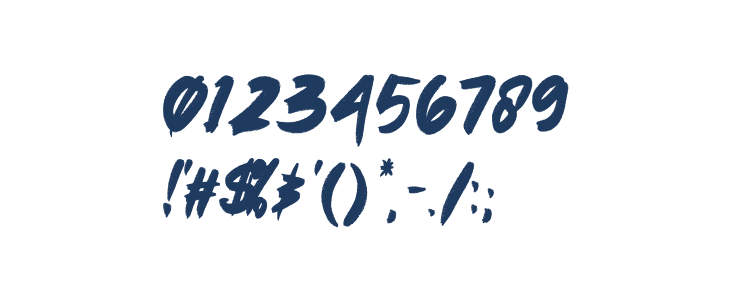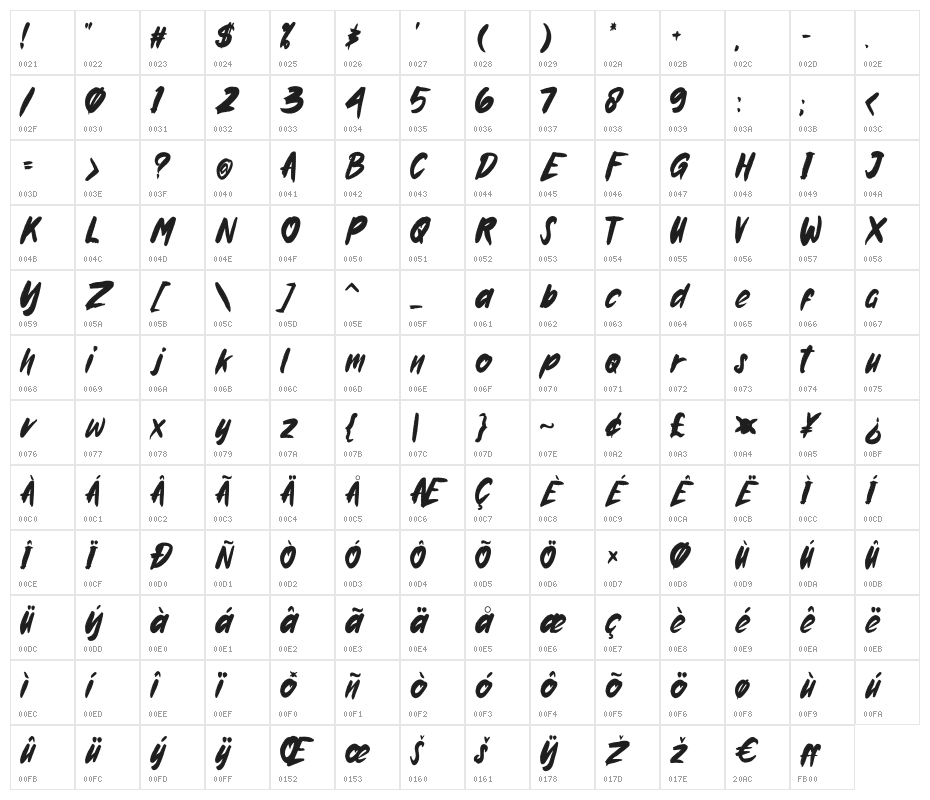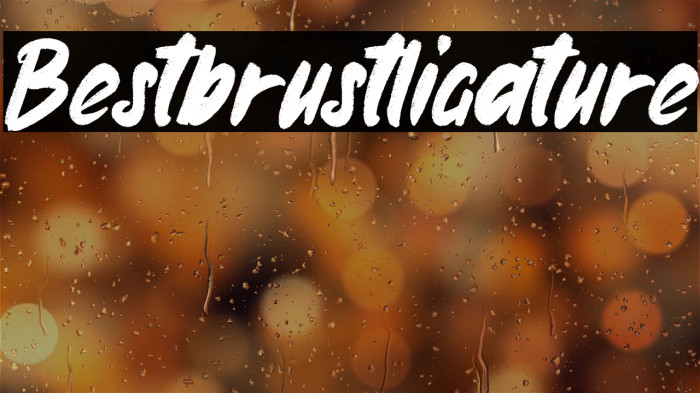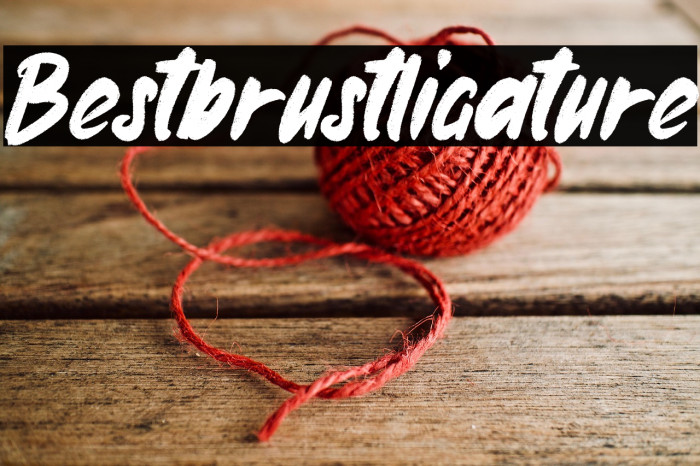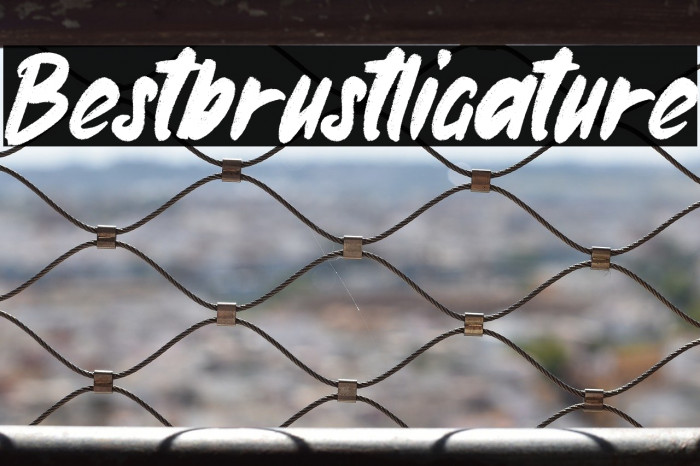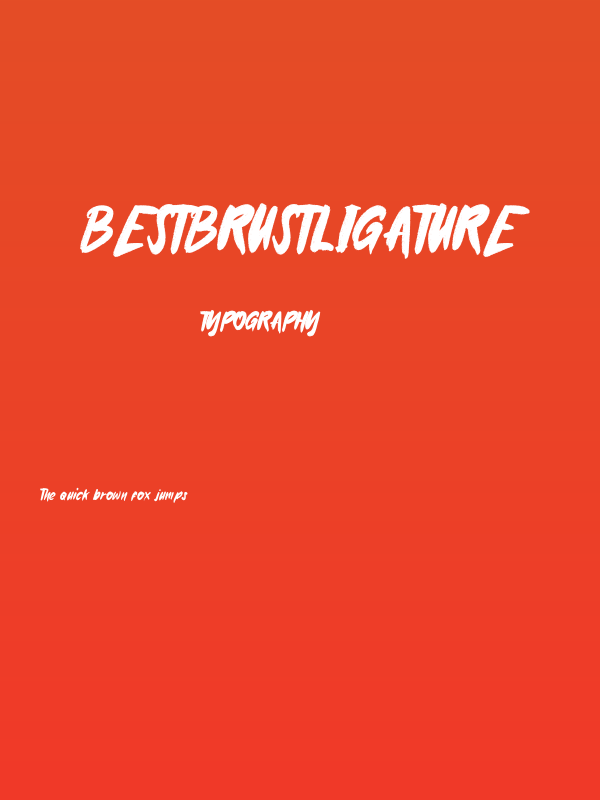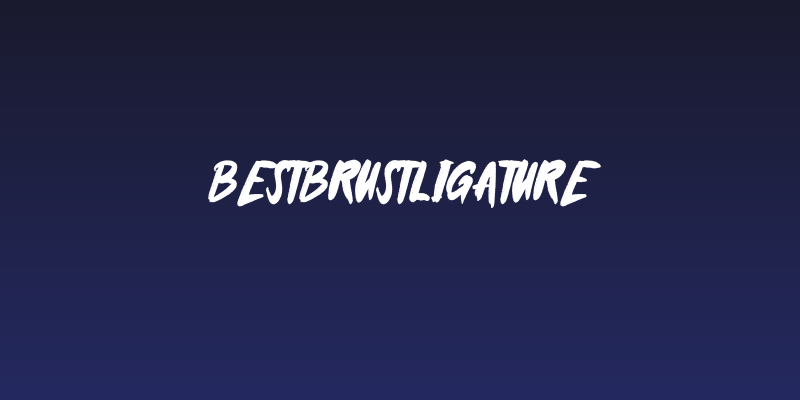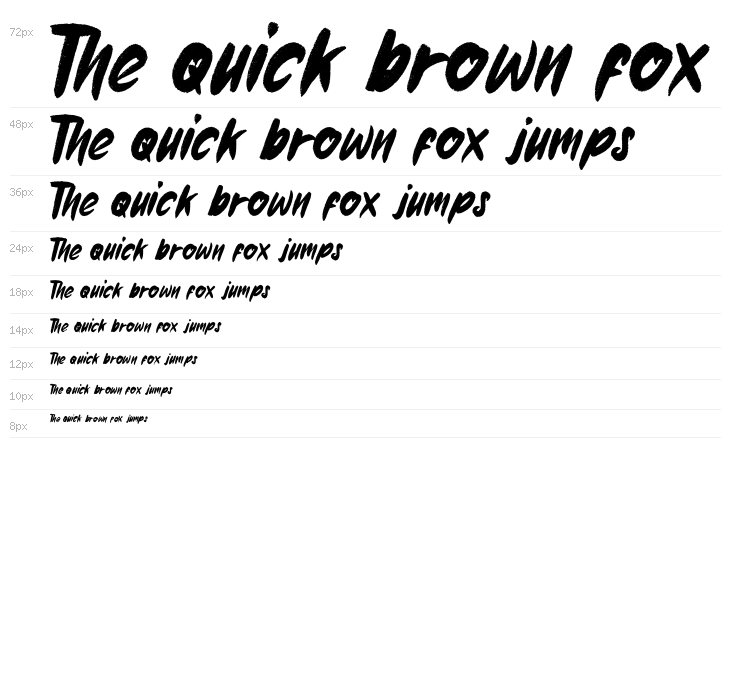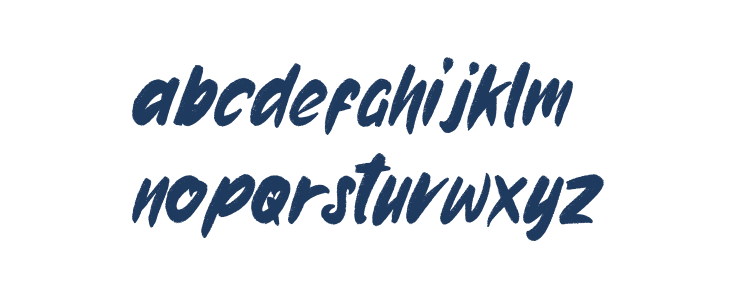
Bestbrustligature Font
Bestbrustligature Description
This font features a bold and dynamic brush script style, characterized by its thick, expressive strokes and energetic flow. The letters are slightly slanted, giving a sense of movement and fluidity. The uppercase and lowercase letters maintain a consistent style, with rounded edges and a hand-painted appearance. The numbers and special characters follow the same bold and artistic design, making them stand out. This font is perfect for projects that require a personal and artistic touch, such as posters, invitations, or branding materials.
| Use Case | Logos, Headlines, Artistic designs |
| Proposed Projects | Ideal for posters, invitations, branding, and artistic designs. |